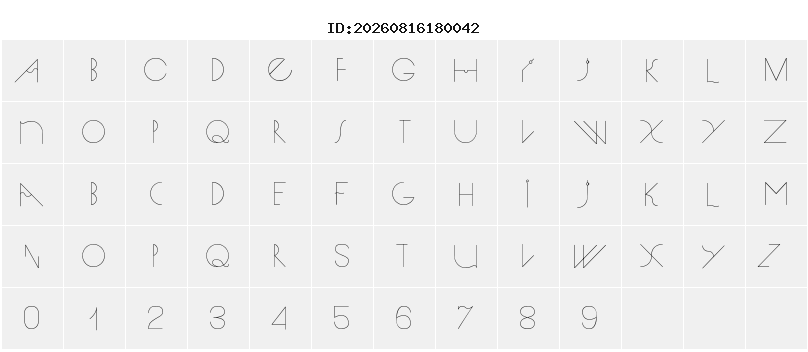
Spike Preview
• Font Name: Spike
• Full Font Name: Spike
• Version: Version 1.00 October 8, 2007, initial release
About Spike.ttf
Spike.ttf is a modern, elegant sans-serif font designed for ultimate readability and visual harmony. Perfect for branding, headlines, web design, and print materials.